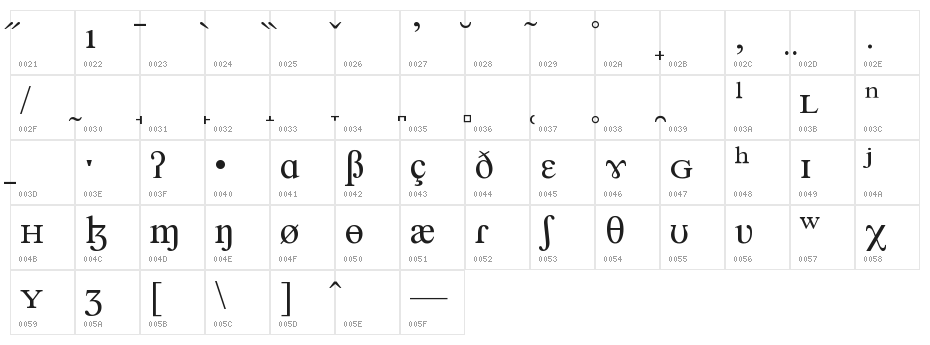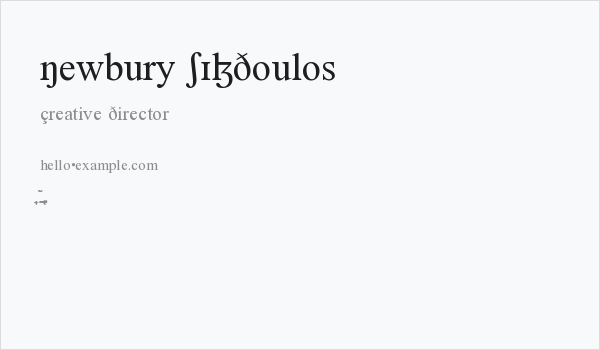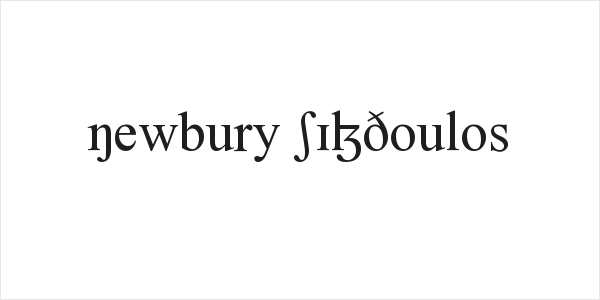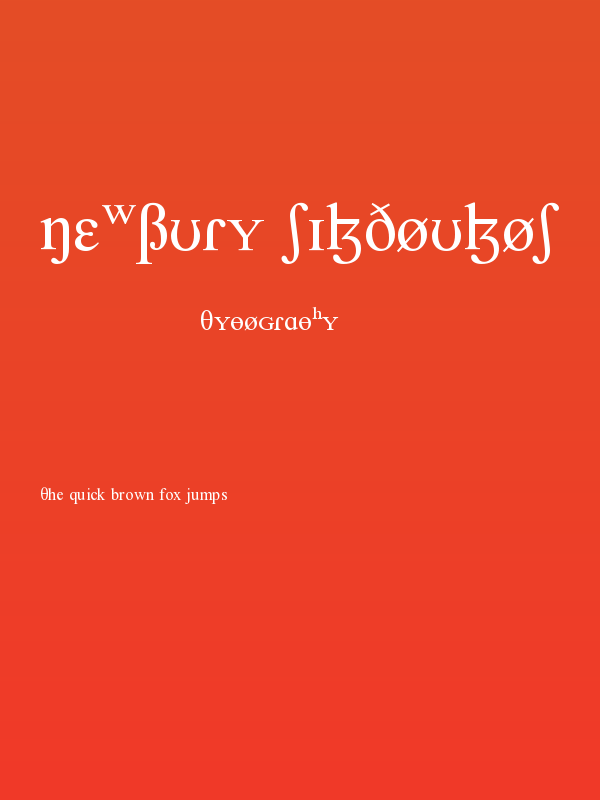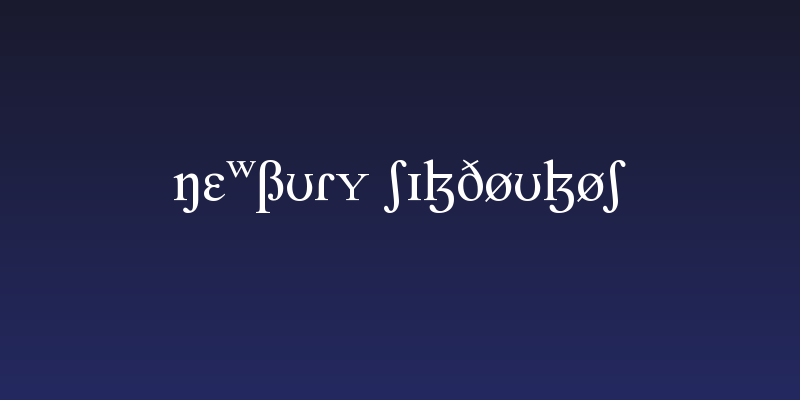
Newbury SILDoulos Font
Newbury SILDoulos Description
This font features a classic serif style with elegant curves and a traditional appearance. The uppercase letters are bold and prominent, while the lowercase letters maintain a consistent and readable form. The serifs are well-defined, adding a touch of sophistication to the overall design. The font includes a range of special characters, providing versatility for various types of text. Its balanced proportions and clear legibility make it suitable for both print and digital media. The contrast between thick and thin strokes is moderate, enhancing readability without sacrificing style.